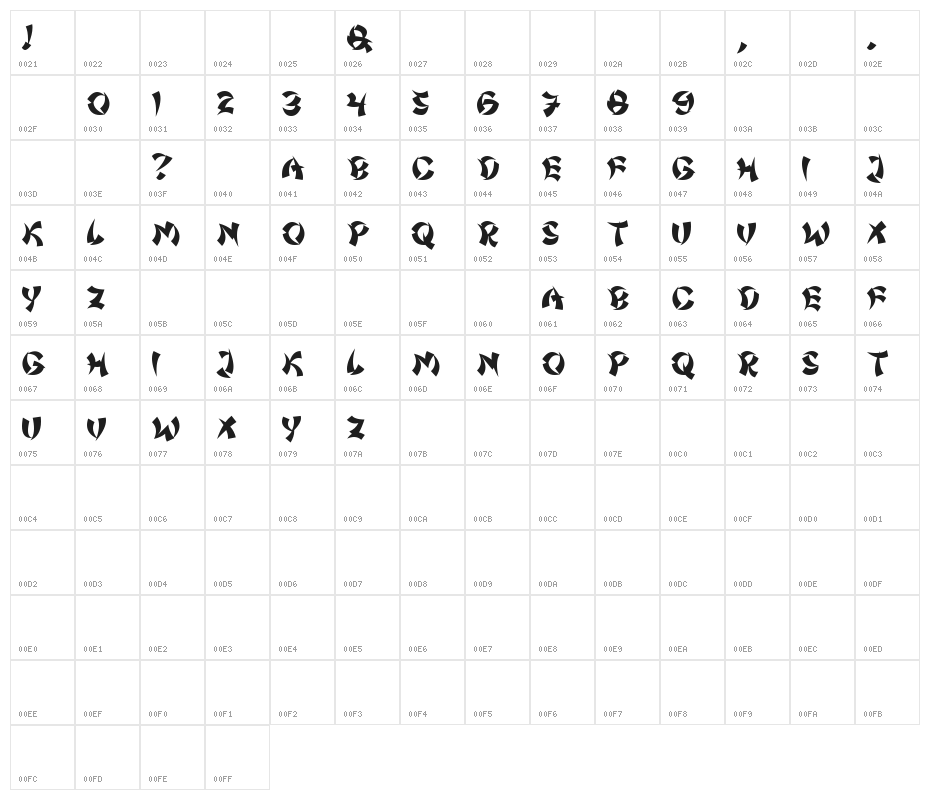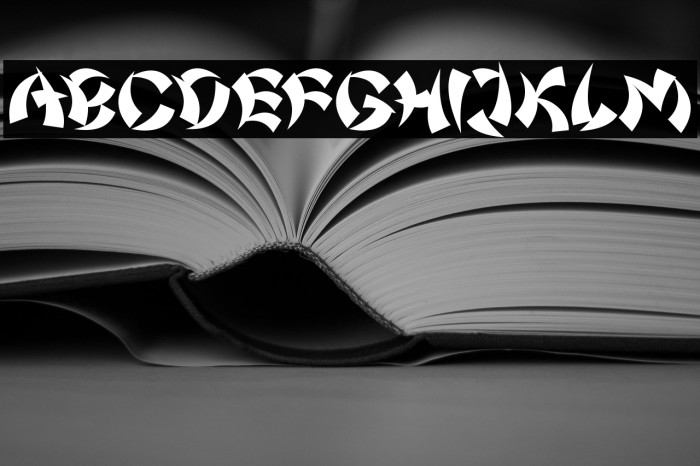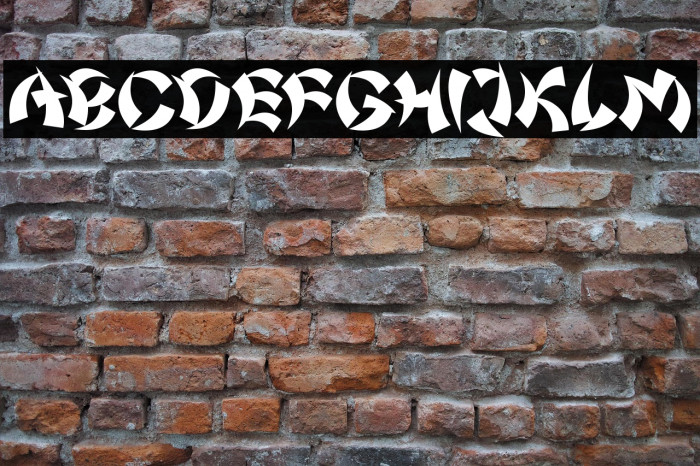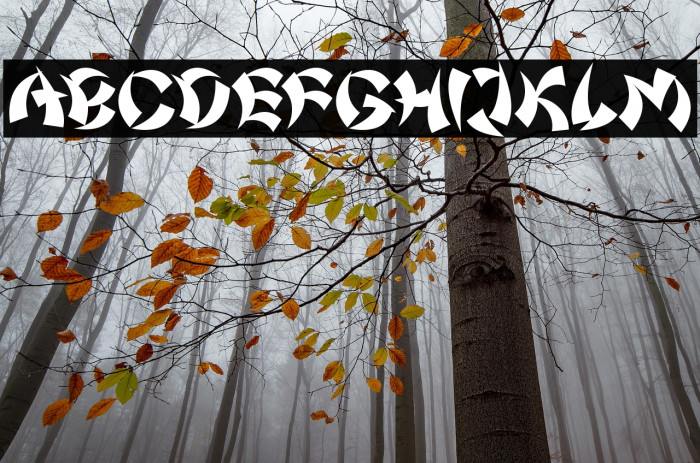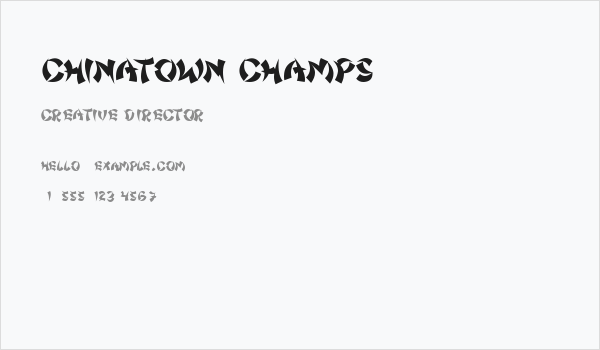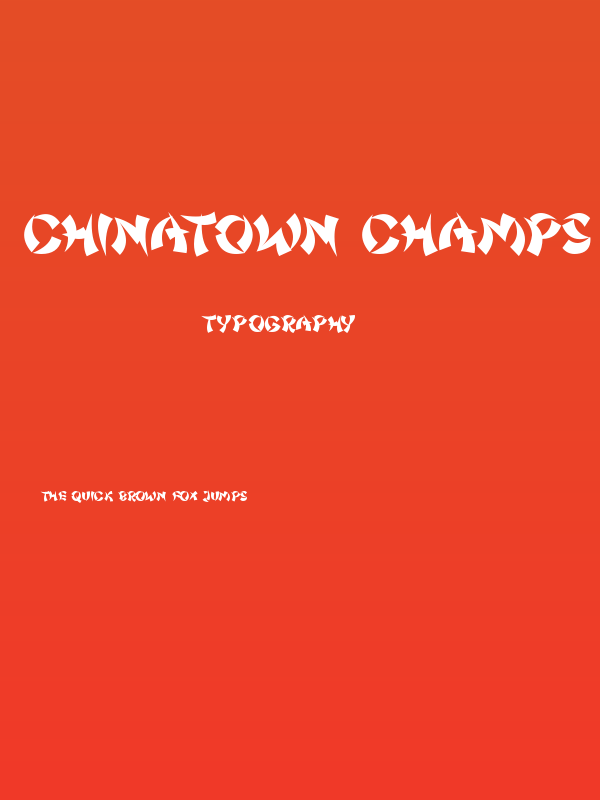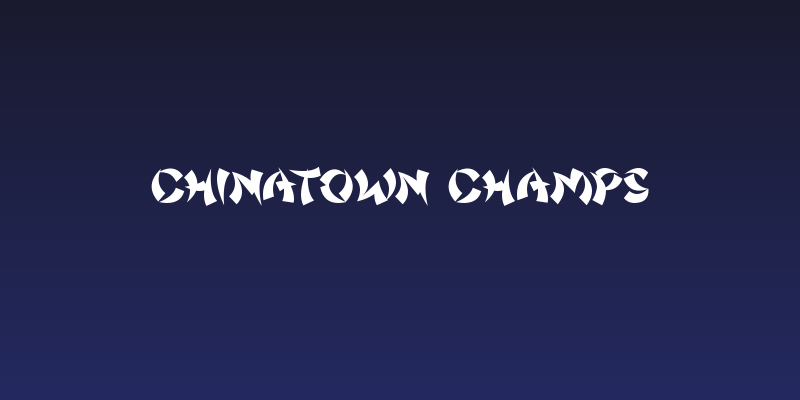
Chinatown Champs Font
Chinatown Champs Description
This font features a bold and dynamic style with sharp, angular edges and a distinctively modern flair. The characters are crafted with a unique, artistic approach that combines elements of traditional calligraphy with a contemporary twist. Each letter is designed with a sense of movement and energy, making it stand out with a striking visual impact. The font's boldness is complemented by its intricate detailing, which adds depth and character to each glyph. The numbers and special characters maintain the same stylistic elements, ensuring a cohesive look across all text. This font is perfect for projects that require a strong, eye-catching typeface with a touch of artistic elegance.
| Proposed Projects | Ideal for branding, posters, album covers, and any design needing a bold statement. |